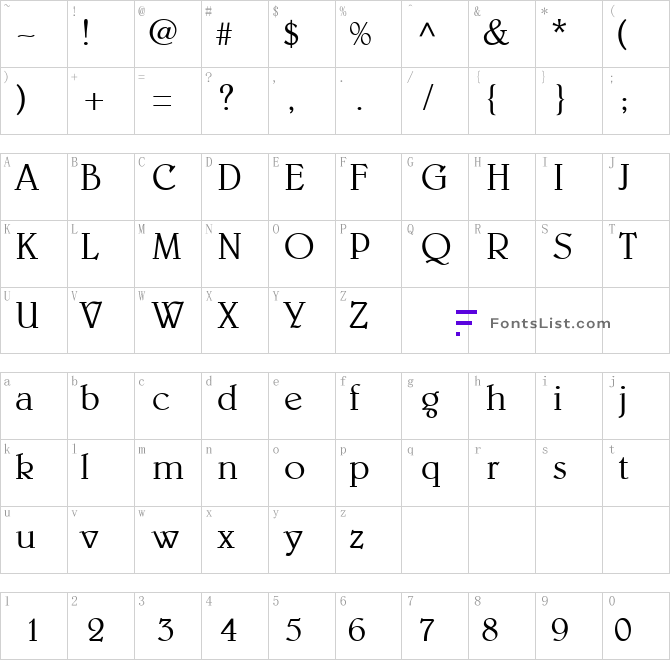
- Font Name:Barrister Light SSi
Barrister-Light-SSi-Light.ttf is a very beautiful artistic font, Barrister-Light-SSi-Light.ttf is widely used in the design and printing of various books and pictures,Barrister-Light-SSi-Light.ttf has a strong visual impact,Barrister-Light-SSi-Light.ttf is a commonly used font in newspapers, magazines and books, and is used in posters, e-commerce Poster design, store design, logo design, font design and other fields.Barrister-Light-SSi-Light.